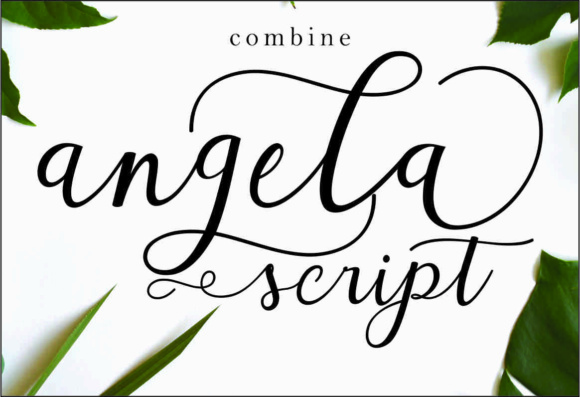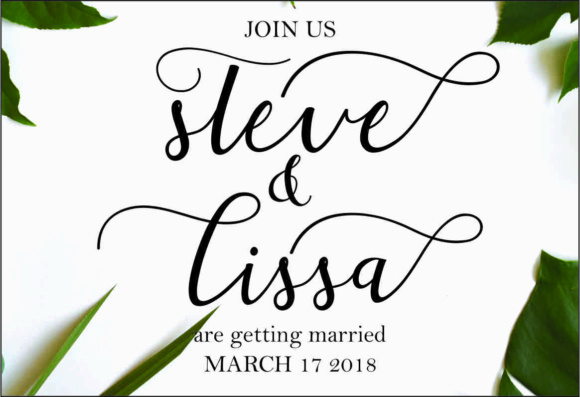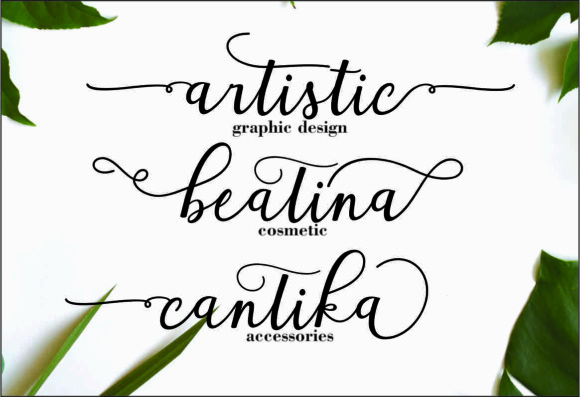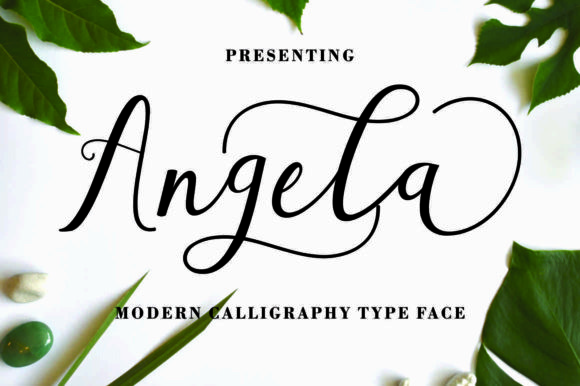
Introduction to Angela Script Font
Angela is script font with modern hand scratches.
It contains lots of beautiful swashes which give your design an elegant and feminine touch With its trendy and natural style, Angela can be used for various designs.